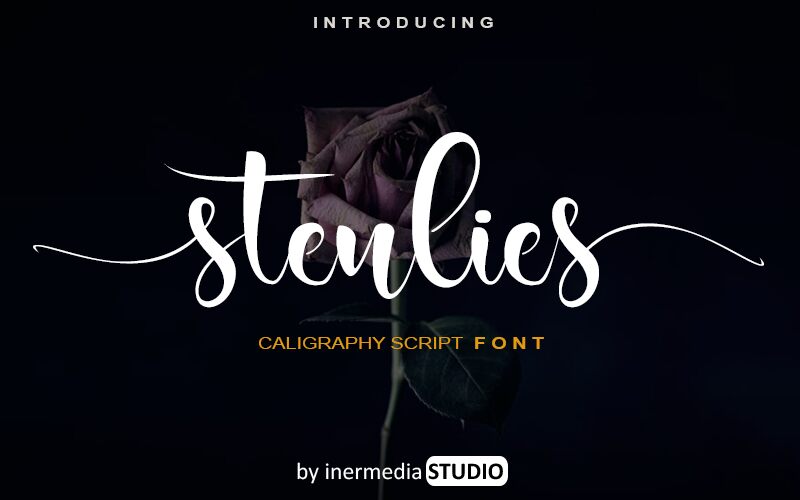
Stenlies New
Stenlies New is a stunning calligraphy font designed by Inermedia Studio. Its semi-light weight makes it a great choice for elegant and sophisticated projects, such as wedding invitations, book covers, and luxury branding. With its flowing strokes and intricate details, Stenlies New exudes beauty and grace that will elevate any design to new heights. This font is perfect for projects that require a touch of sophistication and class. Its timeless style will never go out of fashion and will add a touch of elegance to any project it’s used for. Try Stenlies New today and watch your designs come to life!